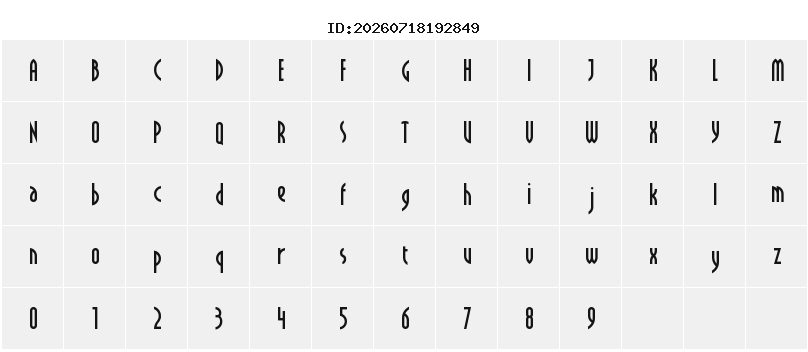
• Font Name: Crichton
• Full Font Name: Crichton
• Designer: Neale Davidson
• Manufacturer: Pixel Sagas
About Crichton.otf
Crichton.otf is a modern, elegant sans-serif font designed for ultimate readability and visual harmony. Perfect for branding, headlines, web design, and print materials.